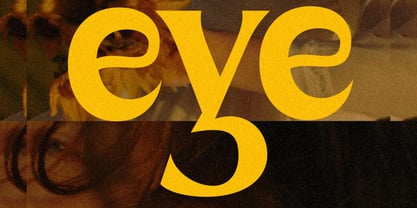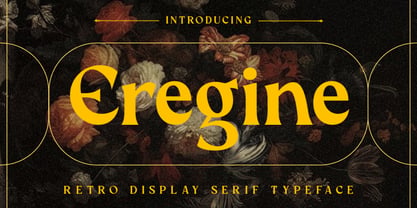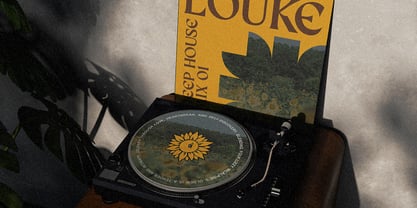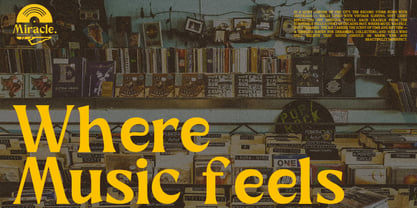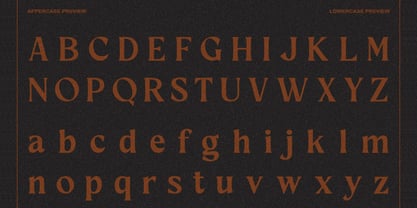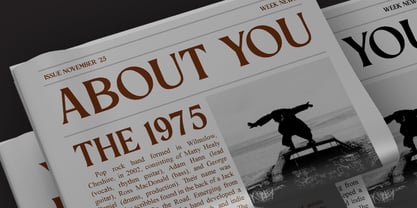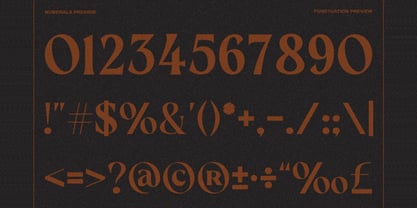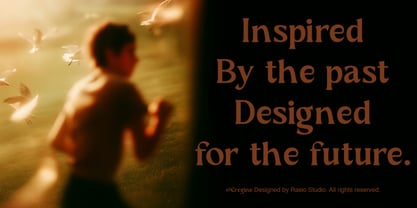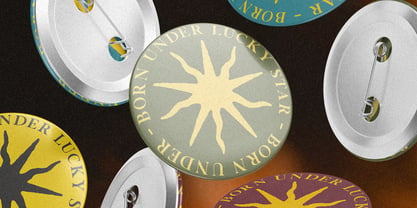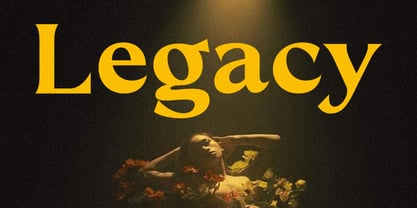
Eregine
von Rasio Studio
Die Schriftfamilie Eregine wurde von Fajar Indra entworfen und von Rasio Studio veröffentlicht. Eregine enthält 1 Stile. Mehr über diese Familie
Eregine is a bold retro display serif typeface crafted with sharp wedge serifs, elegant curves, and a classic vintage character. Its strong contrast and expressive letterforms deliver a luxurious old-world aesthetic inspired by editorial posters and antique floral artwork. Featuring uppercase, lowercase, numerals, and complete punctuation, Eregine gives every headline a dramatic, prestigious, and timeless presence. Perfect for branding that needs a bold retro statement with refined craftsmanship.
Designer: Fajar Indra
Foundry: Rasio Studio